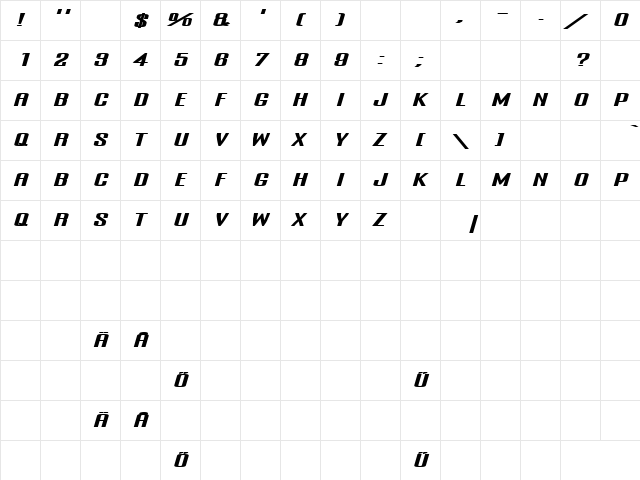
Onani Regular
Design Context for Onani Typeface
Onani is a composed and adaptable typeface that performs quietly and consistently across a wide range of design contexts.